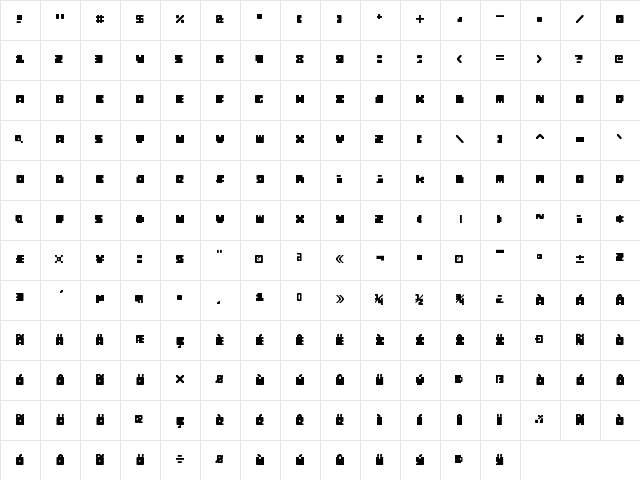
Monosquare Extended Regular
Designer: nrkn
Design Context for Monosquare Extended
Monosquare Extended uses fixed-width spacing throughout, giving it the structured, systematic character associated with coding environments and technical documentation.
Pro Tip: Use Monosquare Extended with slightly increased line-height for extended reading - fixed-width spacing can feel dense in longer passages without extra breathing room.